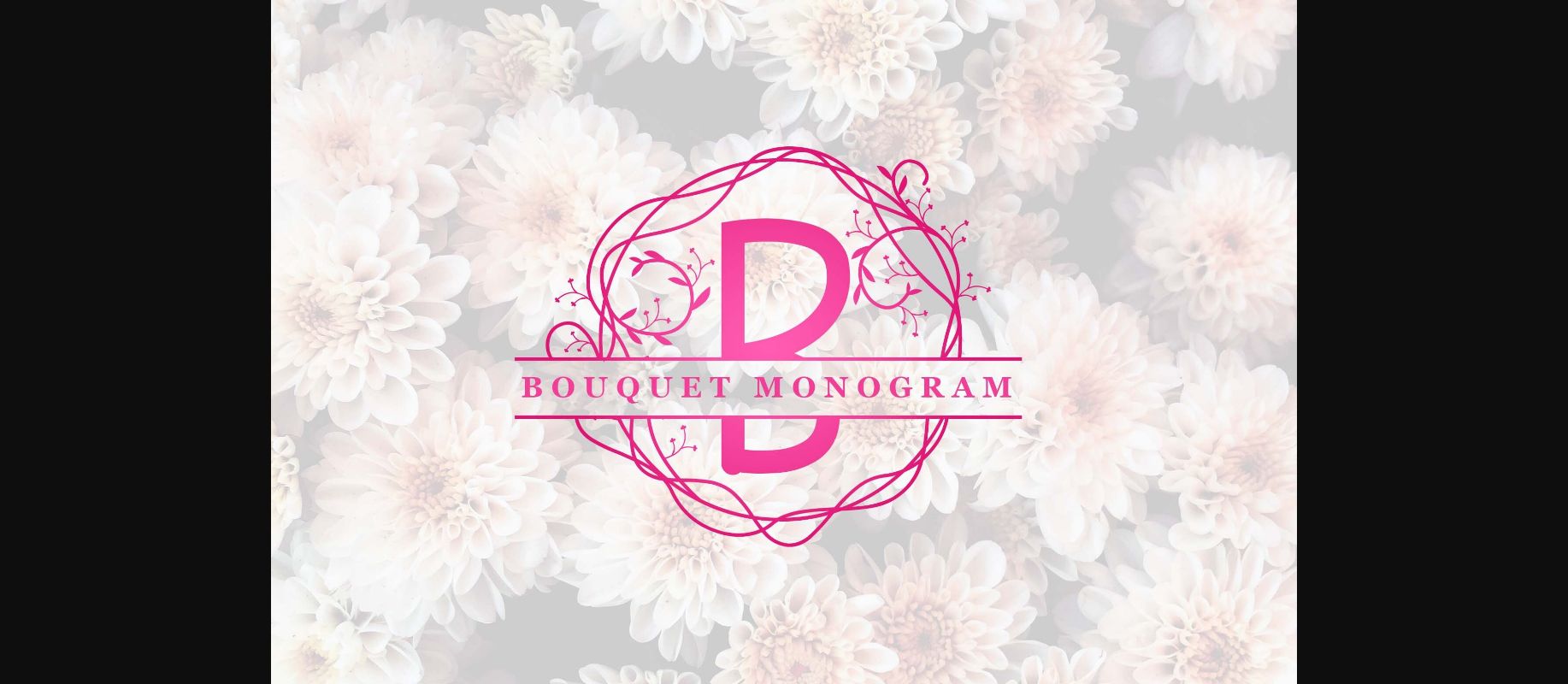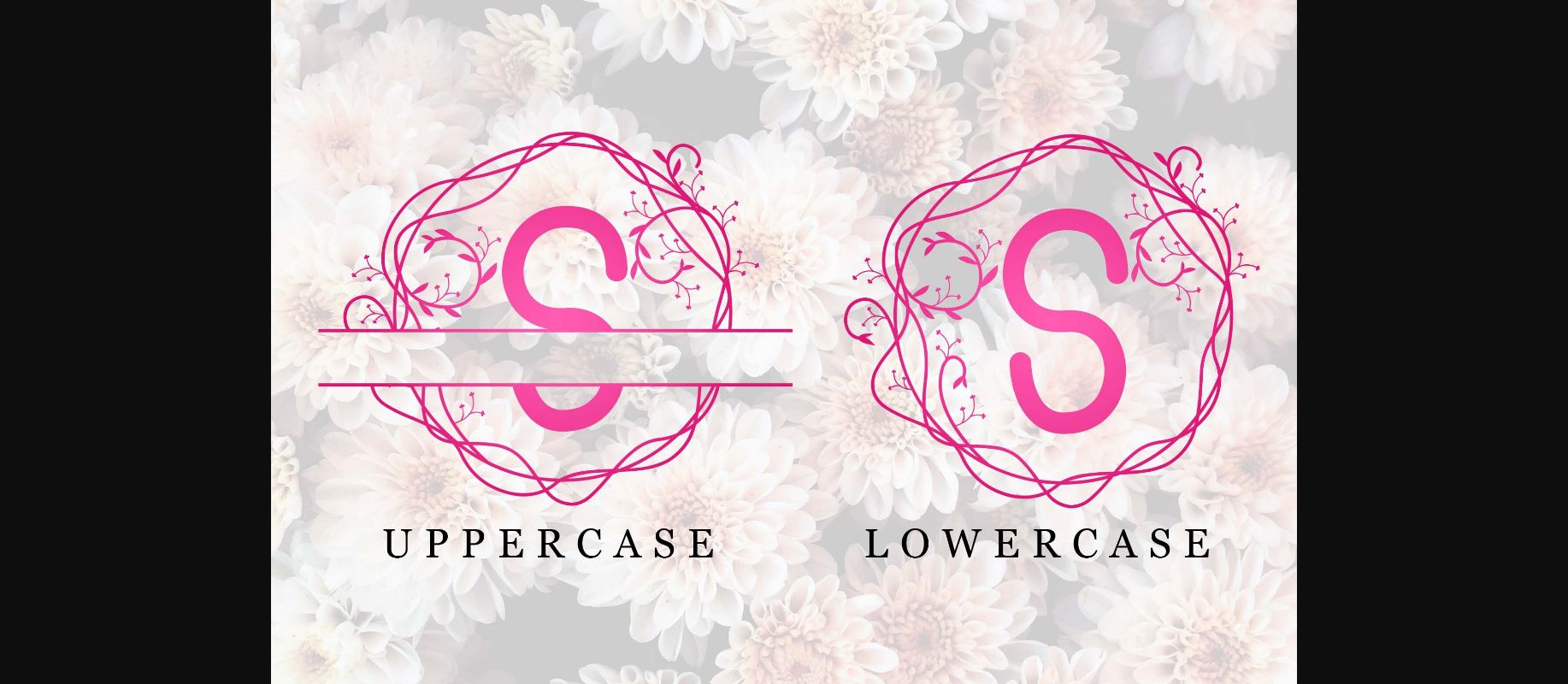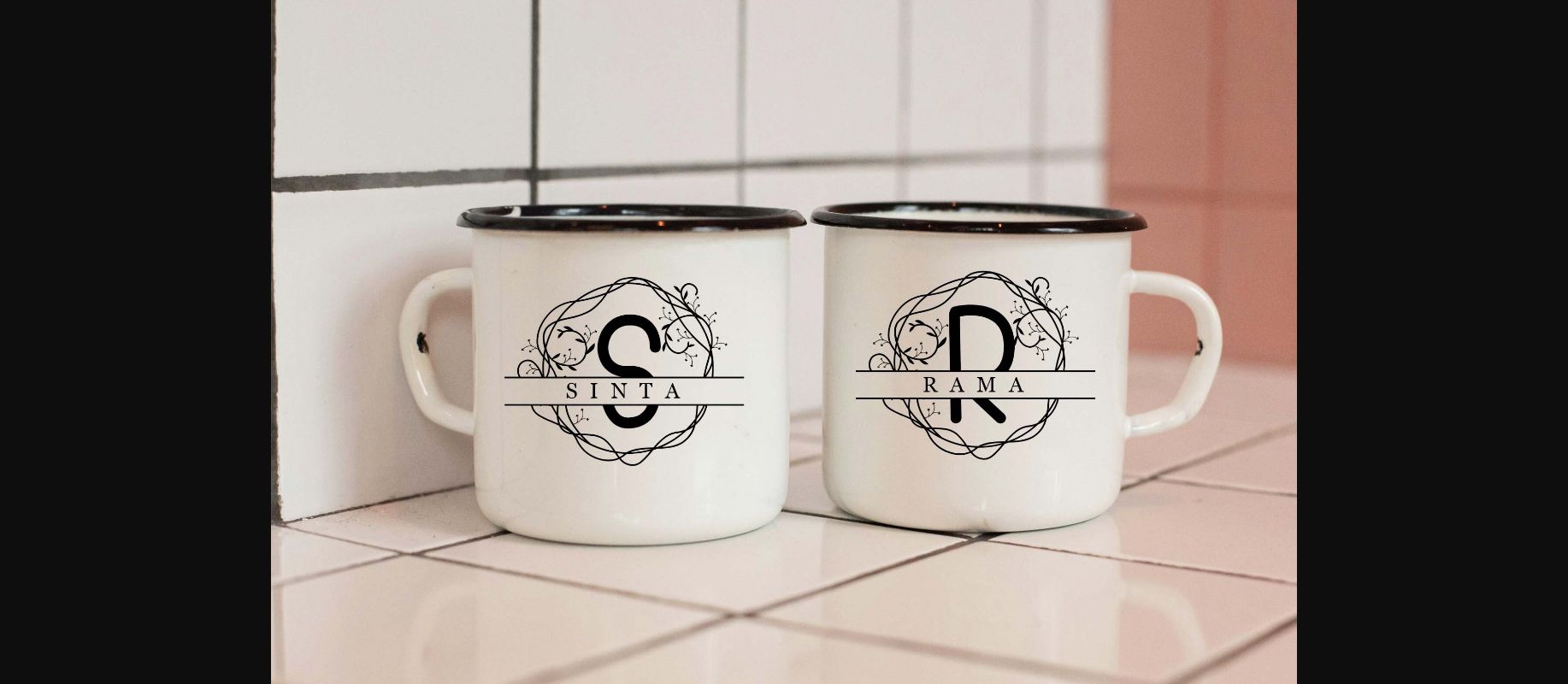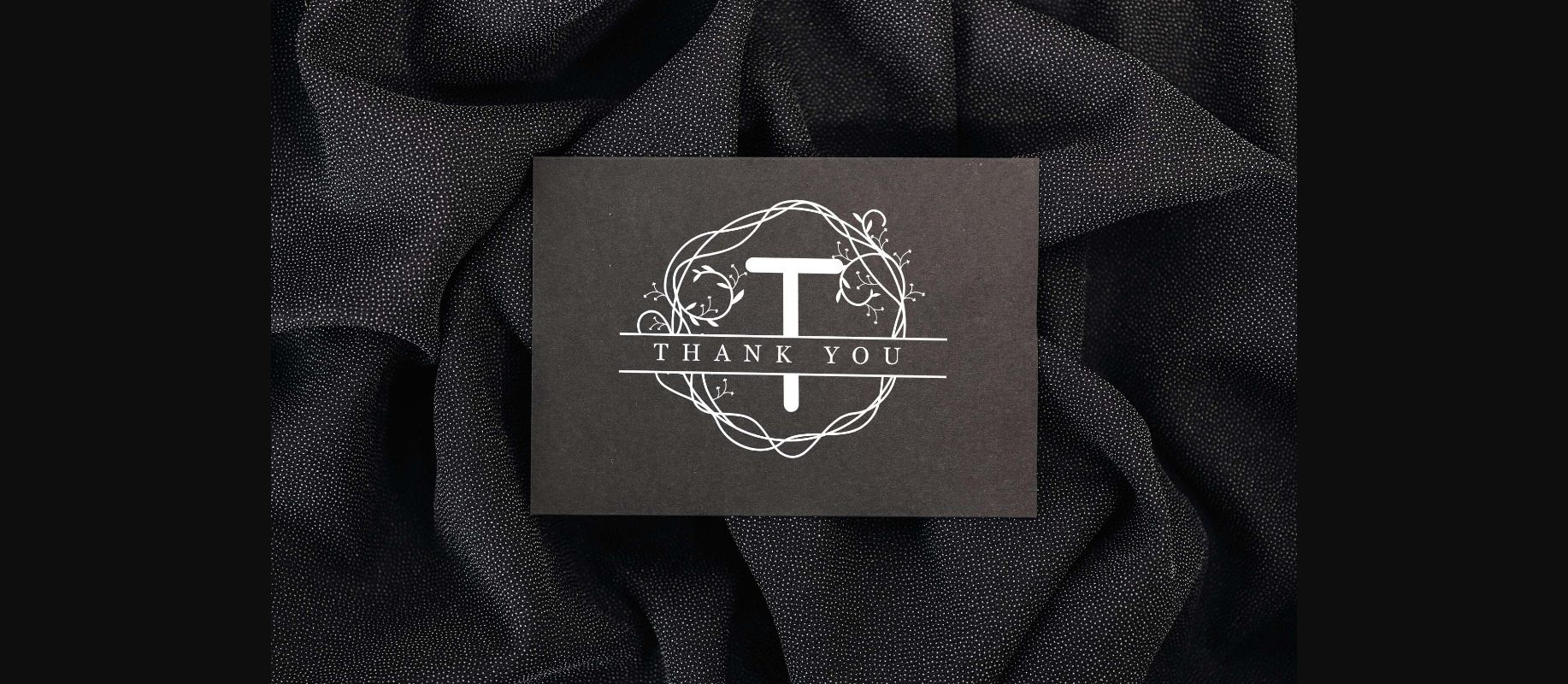
About Bouquet Monogram Font
Bouquet Monogram is a very beautiful and harmonious decoration font. This font is suitable for making greeting cards, social media posts, mug designs, crafty designs and many more. This font will become your favorite font because of its elegant and harmonious shape